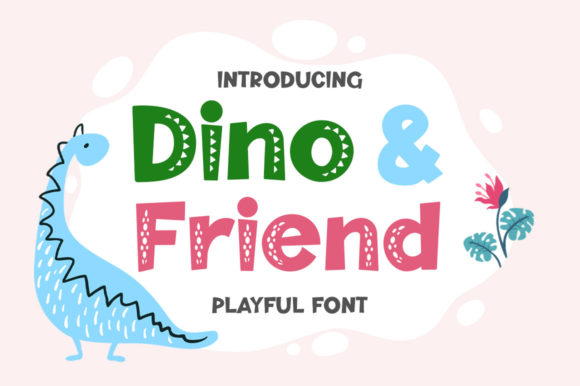
Dino & Friend Font: The Perfect Addition to Your Design Arsenal
In the world of typography, fonts play a crucial role in conveying messages, expressing emotions, and creating a lasting impression. When it comes to designing chalkboard quotes, teaching materials, or any other visual content that requires a personal touch, the right font can make all the difference. This is where the Dino & Friend font comes into play – a cute display font that has been gaining popularity among designers and educators alike.
The Charm of Dino & Friend Font
Dino & Friend font is a beautifully crafted typeface that boasts an authentic, hand-written look. Its unique charm lies in its ability to add a personal and realistic feel to your designs, making it perfect for chalkboard quotes, teaching materials, and other creative projects. The font’s playful and whimsical nature makes it an excellent choice for designers who want to add a touch of warmth and friendliness to their work.
Key Features of Dino & Friend Font
- Cute and Playful Design: Dino & Friend font features a delightful design that is sure to capture the attention of your audience. Its cute and playful look makes it perfect for designs that require a friendly and approachable tone.
- Authentic Look: The font’s authentic look is one of its standout features. It has a hand-written feel that adds a personal touch to your designs, making them look more realistic and engaging.
- Perfect for Chalkboard Quotes: As a display font, Dino & Friend is specifically designed for use on chalkboard quotes, teaching materials, and other visual content that requires a bold and eye-catching look.
- Easily Readable: Despite its playful design, Dino & Friend font is easily readable, making it perfect for use on a variety of design materials, from posters and flyers to digital screens and chalkboards.
Why Choose Dino & Friend Font?
With so many fonts available in the market, why should you choose Dino & Friend font for your design projects? Here are a few compelling reasons:
1. Unique and Creative
Dino & Friend font offers a unique and creative way to express yourself through your designs. Its playful and whimsical nature makes it an excellent choice for designers who want to add a touch of personality to their work.
2. Versatile
Dino & Friend font is versatile and can be used on a variety of design materials, from chalkboard quotes and teaching materials to posters, flyers, and digital screens.
3. Easy to Use
Tips and Tricks for Using Dino & Friend Font
Here are a few tips and tricks to help you get the most out of Dino & Friend font:
1. Experiment with Different Font Sizes
Don’t be afraid to experiment with different font sizes to add visual interest to your designs. Dino & Friend font looks great in large and small sizes.
2. Pair it with Other Fonts
Dino & Friend font pairs well with other fonts, so feel free to experiment with different font combinations to create a unique look.
3. Use it for Headings and Titles
Dino & Friend font is perfect for use on headings and titles, where its bold and eye-catching design can make a lasting impression.
In conclusion, Dino & Friend font is a cute and playful display font that is perfect for chalkboard quotes, teaching materials, and other design projects that require a personal touch. Its authentic look, versatility, and ease of use make it an excellent choice for designers and educators alike. Whether you’re looking to add a touch of whimsy to your designs or create a bold and eye-catching look, Dino & Friend font is sure to deliver.